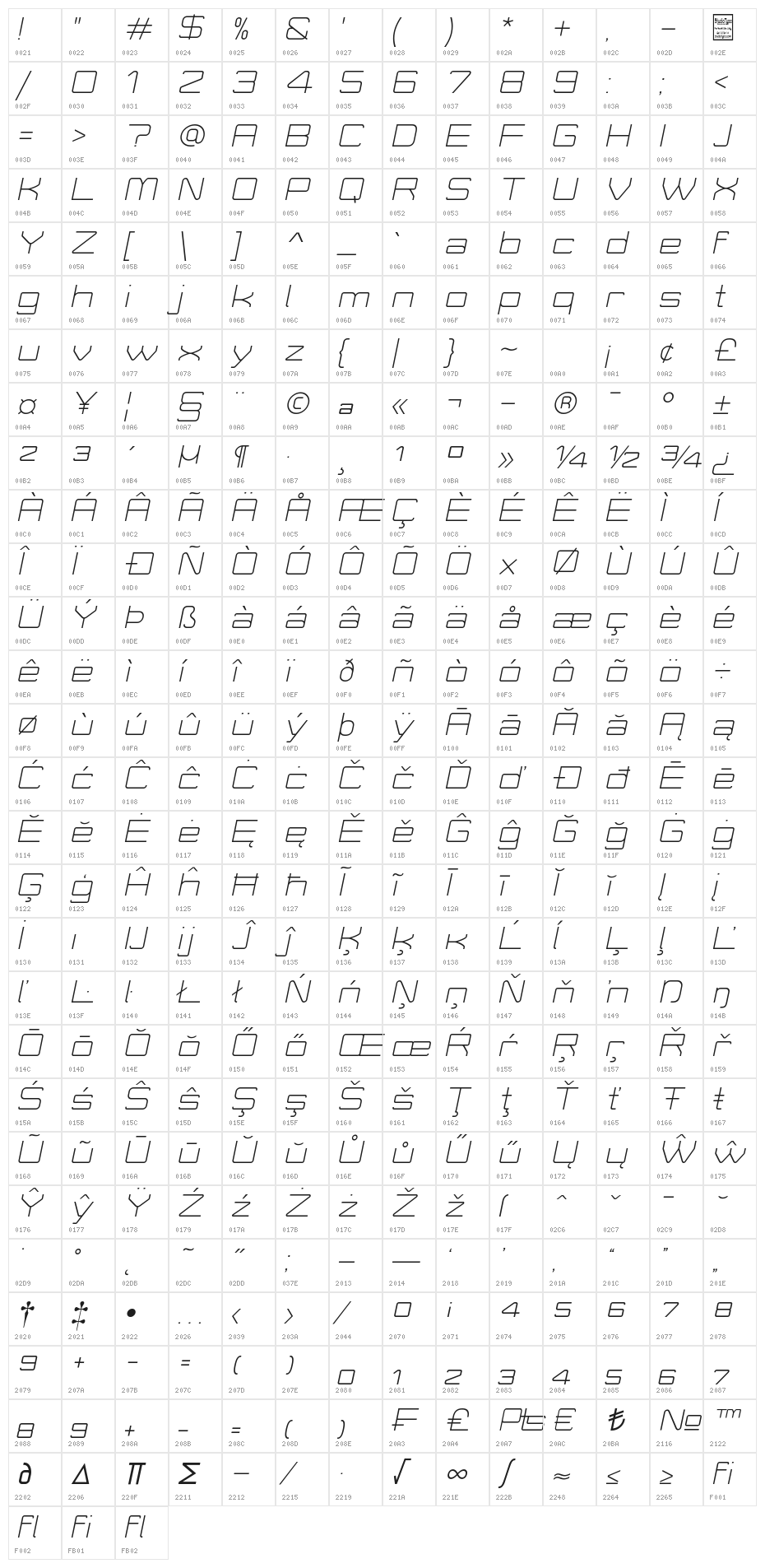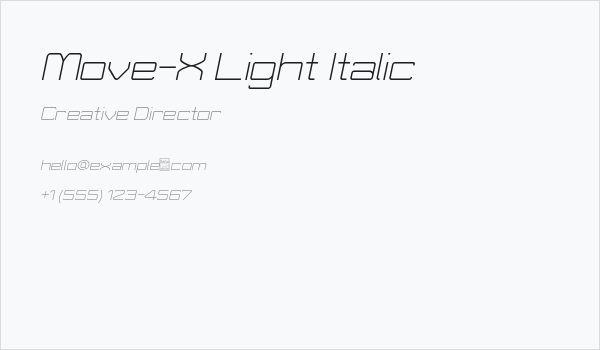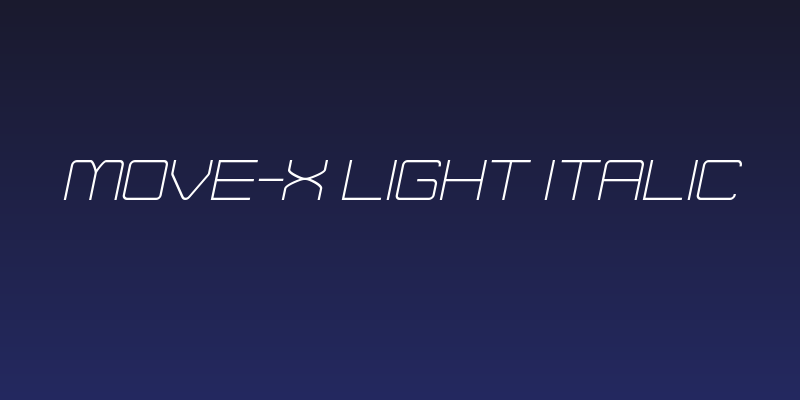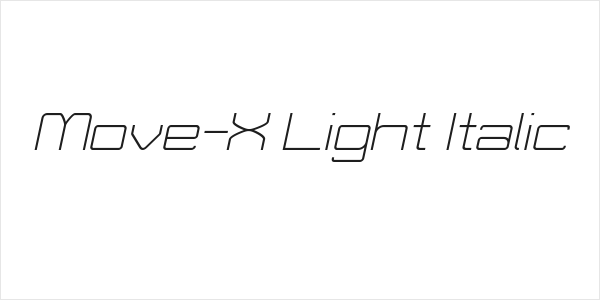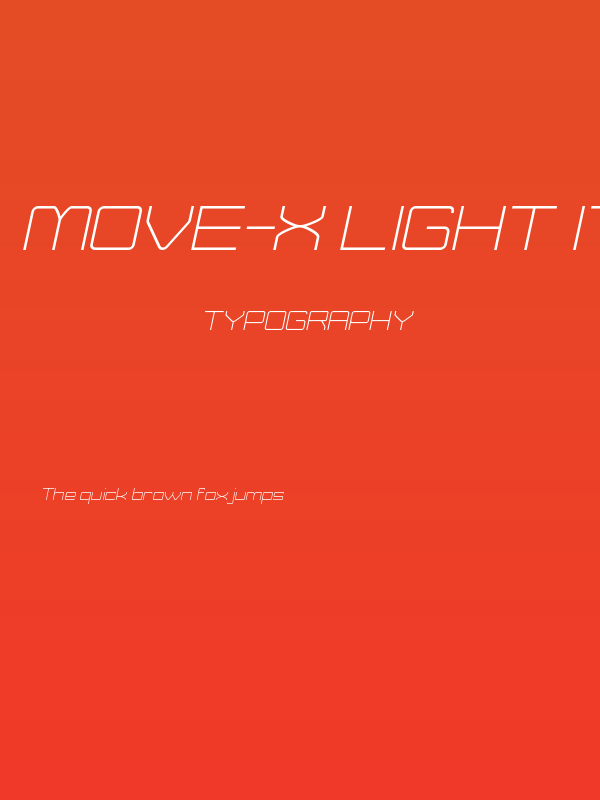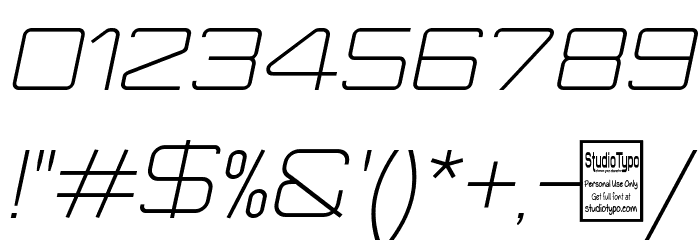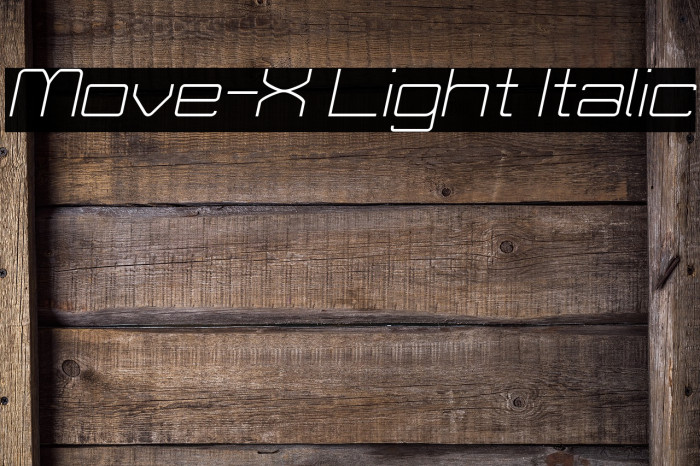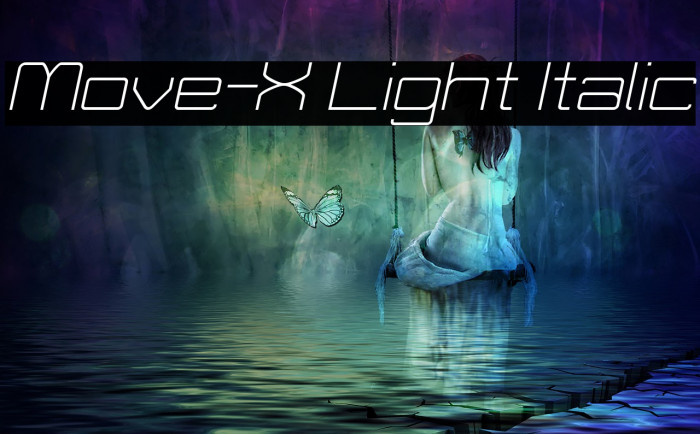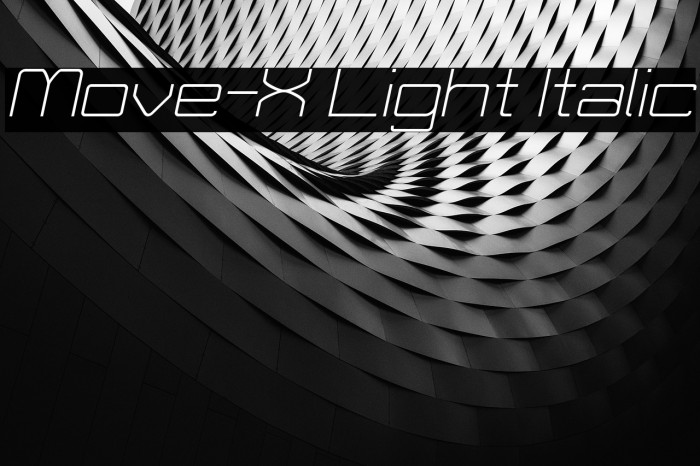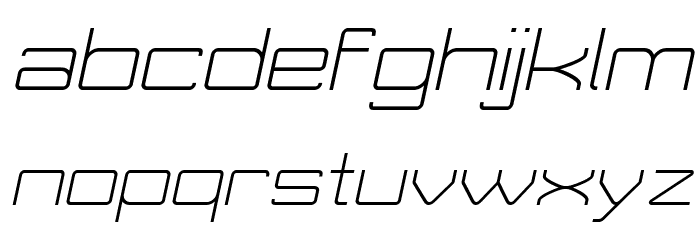
Move-X Light Italic Font
This font features a sleek, modern design with a light and airy feel. The characters are elongated and slightly italicized, giving a sense of movement and elegance. The strokes are thin and consistent, contributing to a clean and minimalist aesthetic. The uppercase and lowercase letters maintain a uniform style, with rounded edges and a geometric structure. The numerals and special characters follow the same design principles, ensuring a cohesive look across all elements. This font is ideal for projects that require a contemporary and sophisticated touch.
| Proposed Projects | Ideal for modern branding, tech-related designs, minimalist posters, and elegant invitations. |